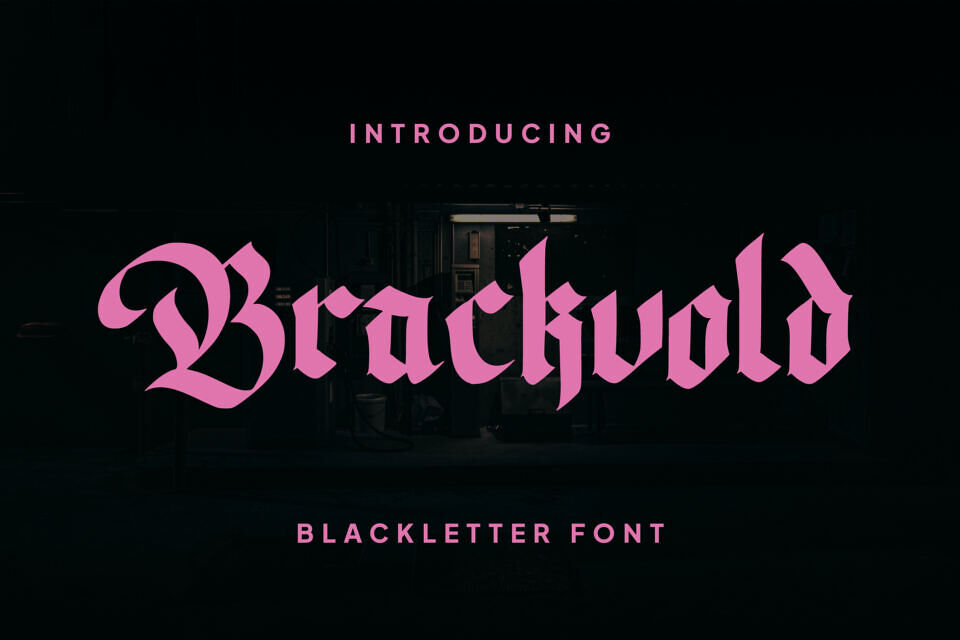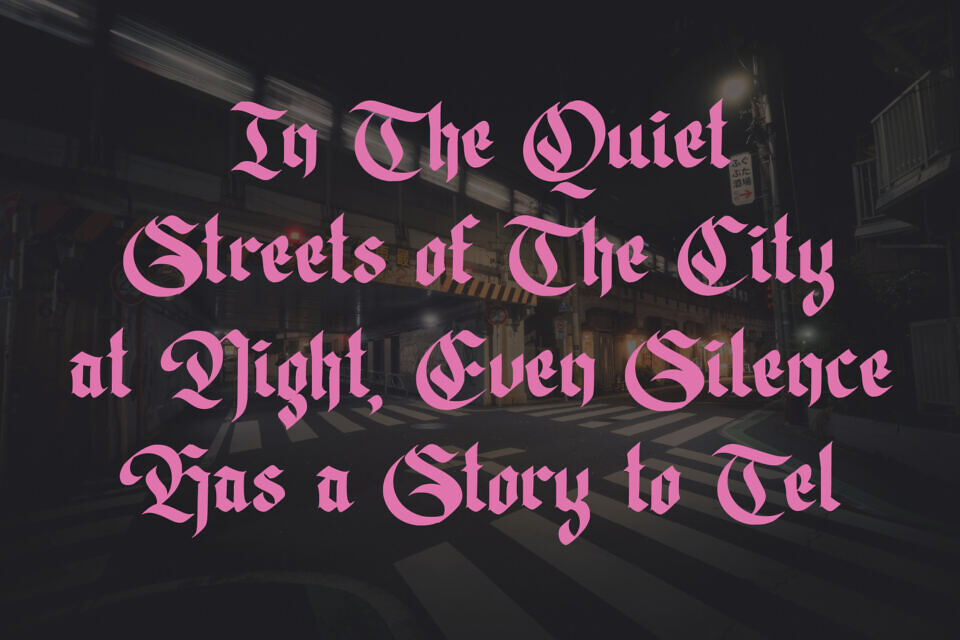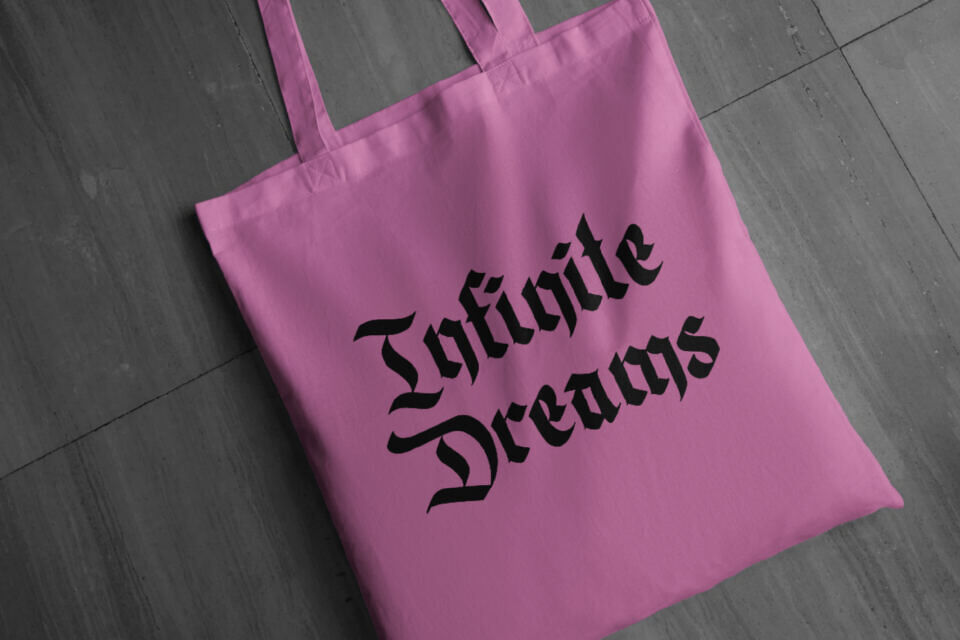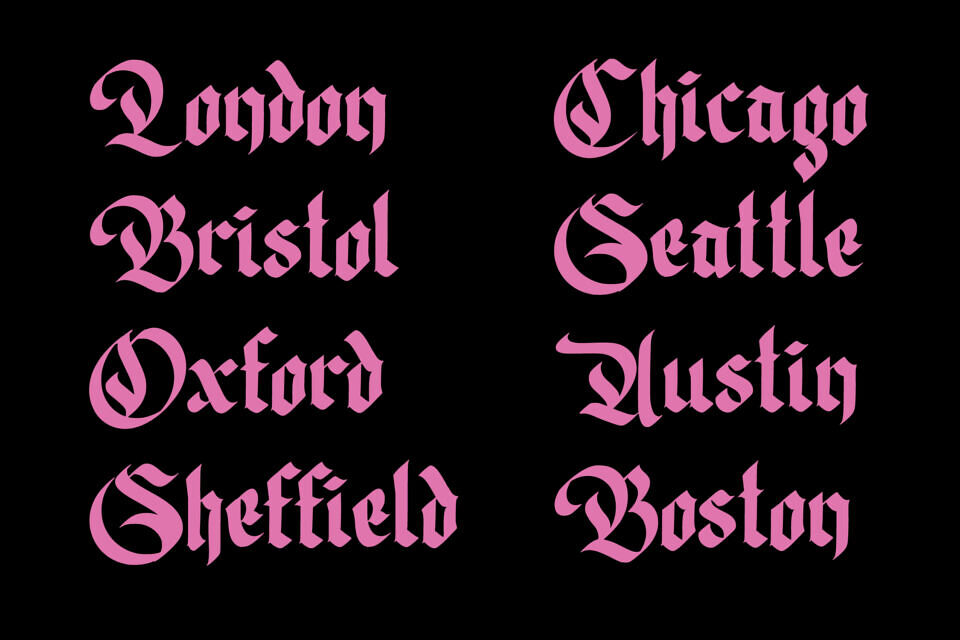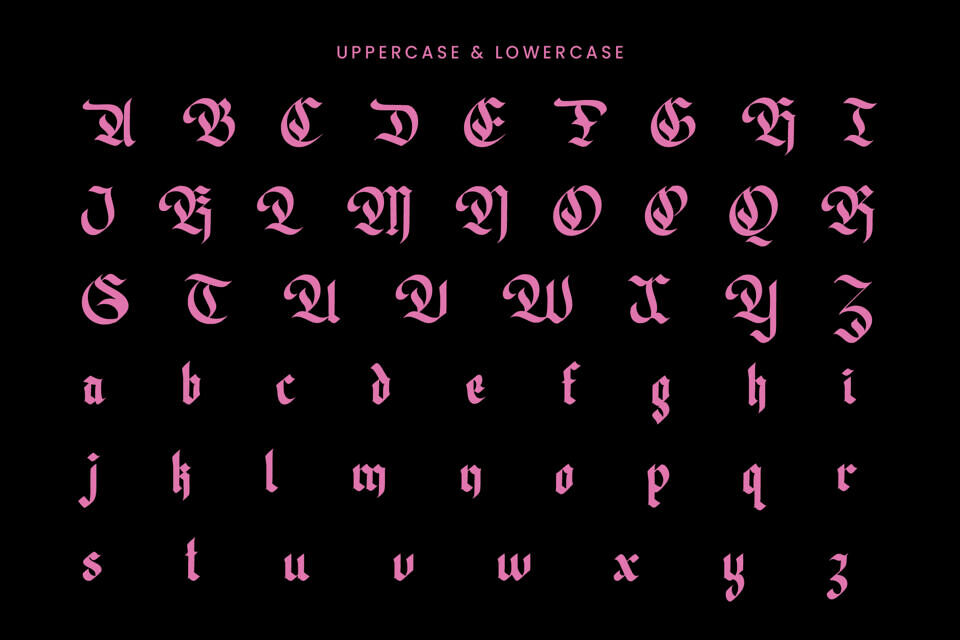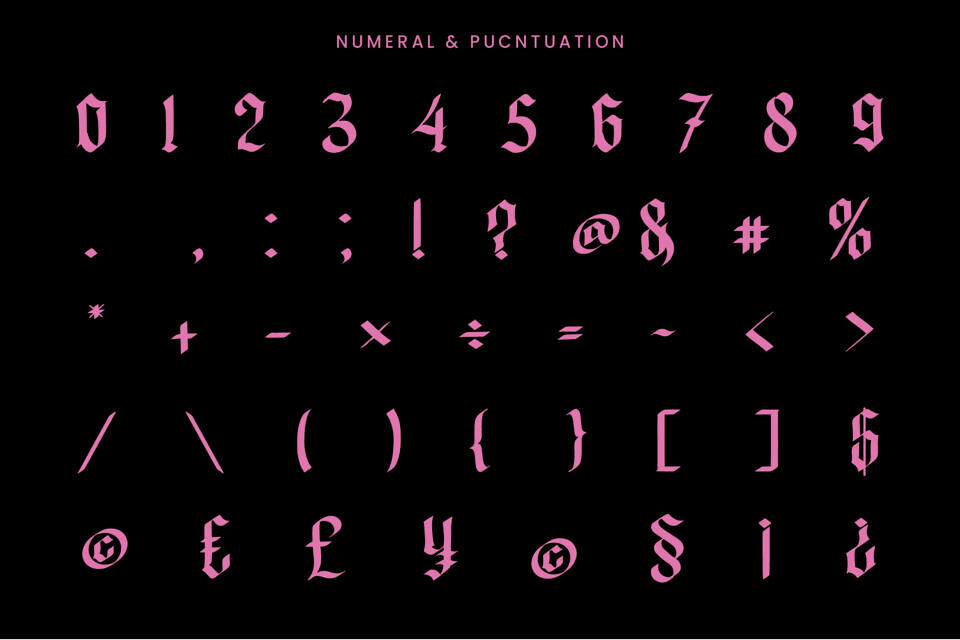
Brackvold is a premium blackletter font that masterfully blends the dark, mystical essence of traditional gothic calligraphy with clean, modern sharp edges. Designed for creators who want to make a powerful and authoritative statement, this typeface strikes a perfect balance between medieval heritage and contemporary street-style aesthetics.
Ideal for creative minds seeking to create a dominant and influential impact, Brackvold acts as the perfect fulcrum between medieval ancestry and current urban-style influences.